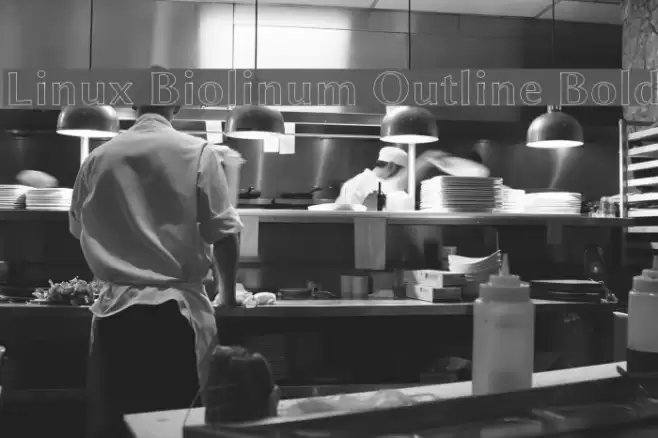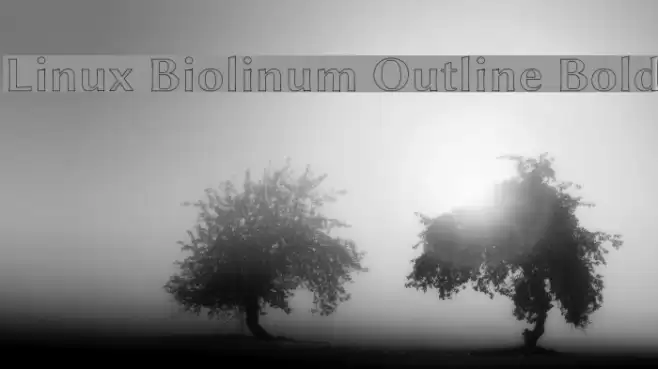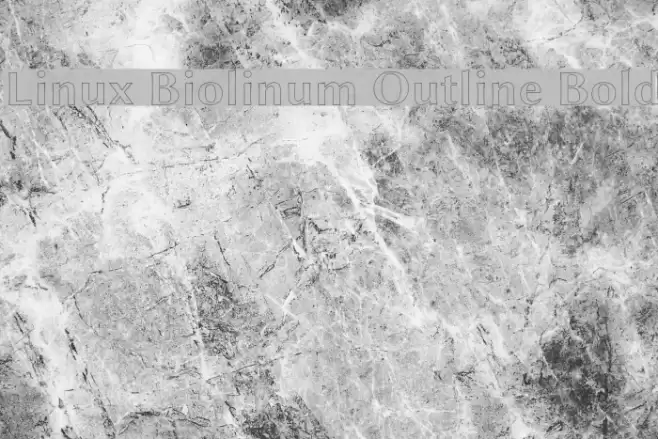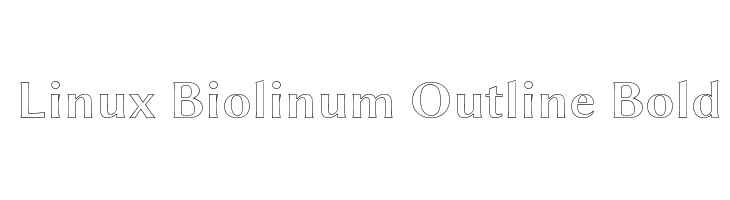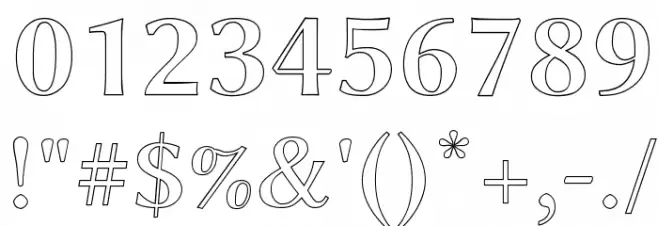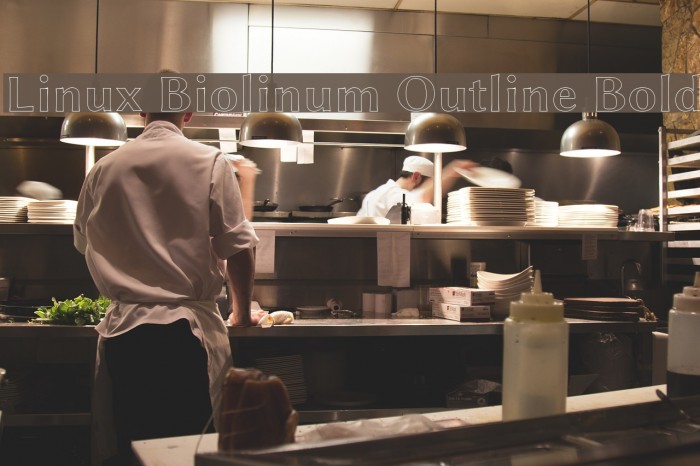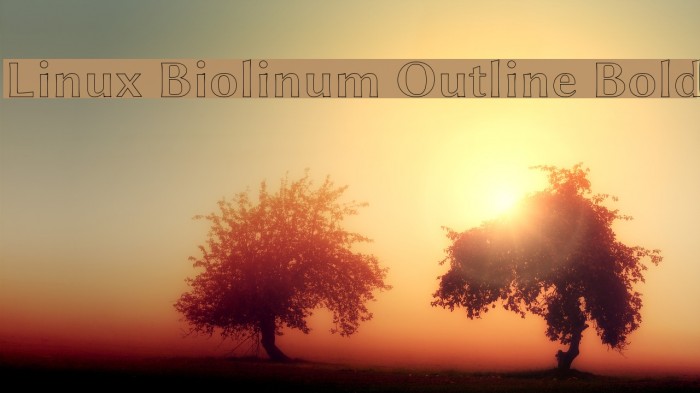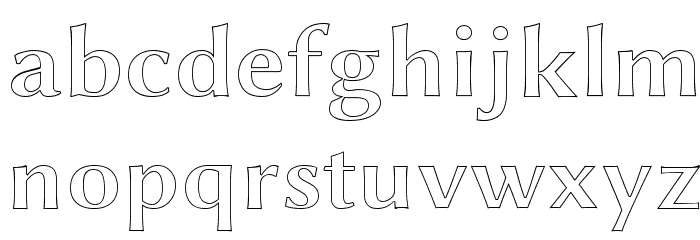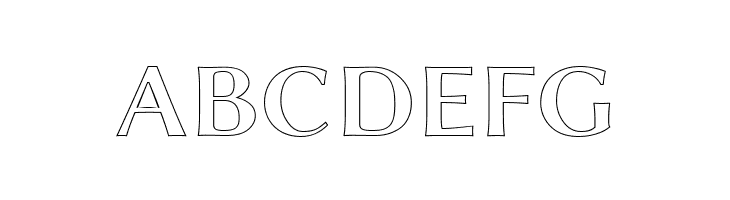
Linux Biolinum Outline Bold Font
Linux Biolinum Outline Bold Description
This font features a clean and modern outline style, characterized by its bold and structured appearance. The uppercase and lowercase letters maintain a consistent geometric form, providing a sense of balance and clarity. The numerals and special characters follow the same outline design, ensuring uniformity across all glyphs. The font's outline nature gives it a unique aesthetic, making it stand out while remaining legible. Its boldness is evident in the thickness of the outlines, which are evenly distributed, creating a harmonious visual effect.
A bold, modern outline font with a clean and structured design from Uncategorized fonts.
- Proposed Projects: Ideal for headlines, posters, logos, and any design project that requires a distinctive and modern look.